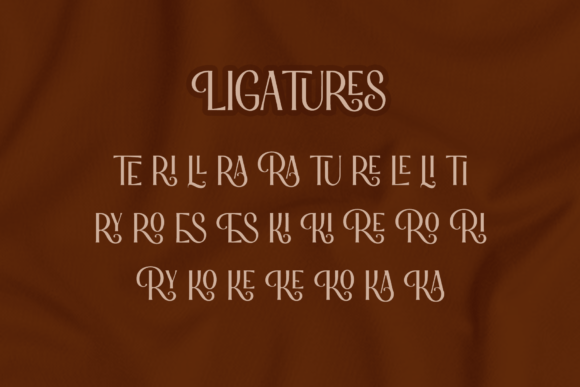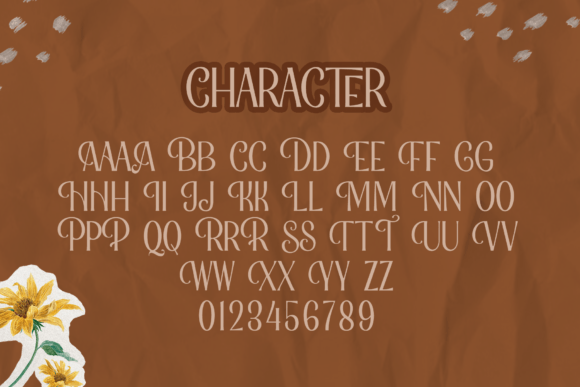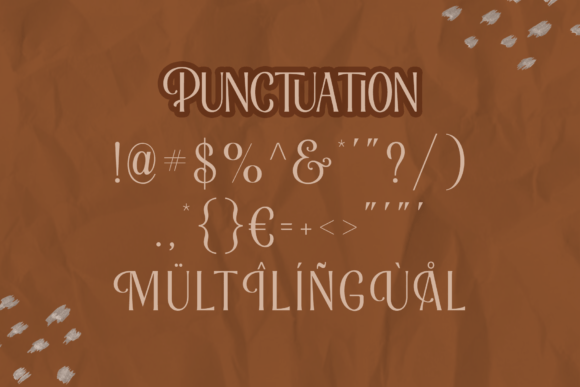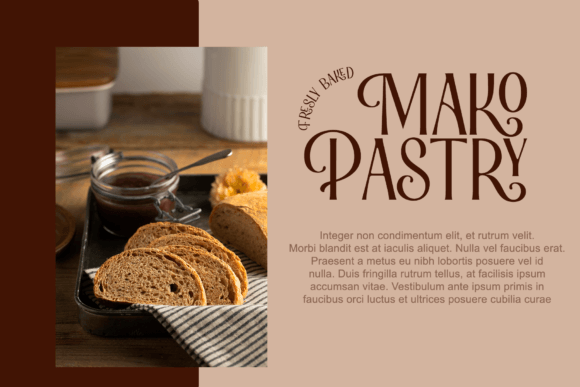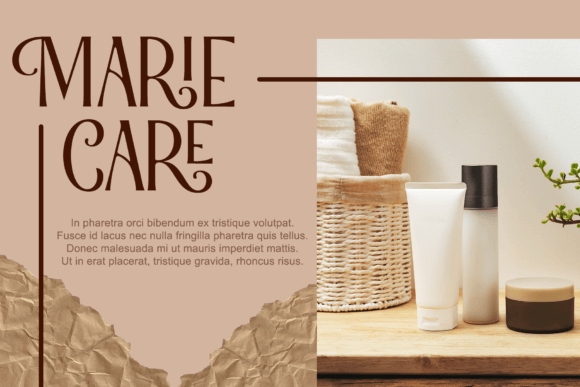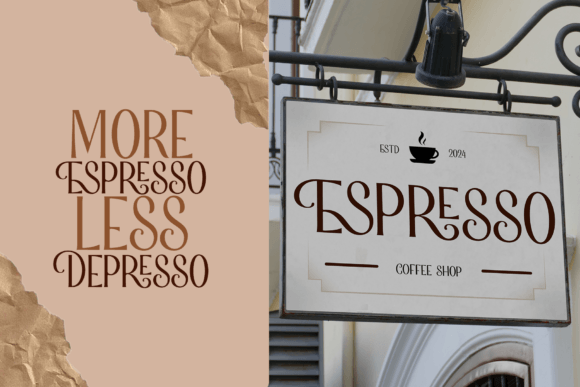
Introduction to Rystec Font
Have you ever stared at a blank canvas, wondering how to bring your creative vision to life? The blank page can be intimidating, but with the right tools, anything is possible. For designers, finding the perfect font can be the key to unlocking a stunning design. That’s where the Rystec Font comes in – a high-quality, modern style font that’s sure to elevate your creative project.
What sets Rystec apart is its attention to detail and beautiful curves, making it a valuable resource for designers. With alternative characters and ligatures, you can add an extra layer of sophistication to your work. Whether you’re creating branding designs, logos, greeting cards, or packaging, the Rystec Font is the perfect companion to help you achieve your vision.
Key Features of Rystec Font
- Includes a range of characters, including uppercase and lowercase letters, numbers, and punctuation marks
- Designed with a modern and sleek aesthetic, perfect for contemporary design projects
- Includes a comprehensive character set, including accented characters and special symbols
Honest Review: Rystec Font
I recently came across the Rystec Font and was excited to try it out for a creative project. As a designer, I’m always on the lookout for high-quality design resources that can elevate my work.
The Rystec Font is a versatile font that works well for various design applications. ✨ One of its standout features is its ability to be easily customized to fit different design styles. I also appreciate that it’s a free download, making it an excellent resource for designers on a budget.
Some of the font’s notable features include:
- High-quality design that’s perfect for print and digital applications
- Translucent background options for added versatility
- Easy-to-use customization options for a personalized look
Overall, I’m impressed with the Rystec Font and would recommend it to designers looking for a reliable and high-quality font for their creative projects. With its versatility and customization options, it’s a valuable addition to any design resource library.
Tips for Getting the Most Out of Rystec Font
For the best results, use Rystec Font in conjunction with other high-quality design elements, such as images and graphics. You can also experiment with different font sizes and styles to add visual interest to your designs.
Common Use Cases for Rystec Font
The Rystec Font is ideal for a wide range of creative projects, including logos, business cards, and marketing materials. Its transparent background makes it easy to use in combination with other design elements.